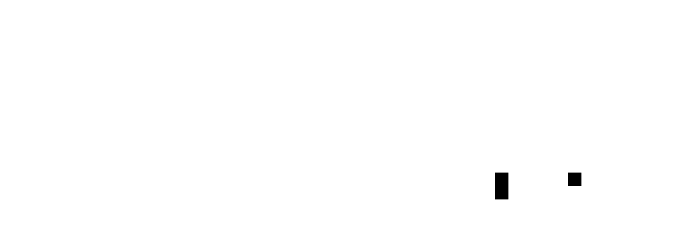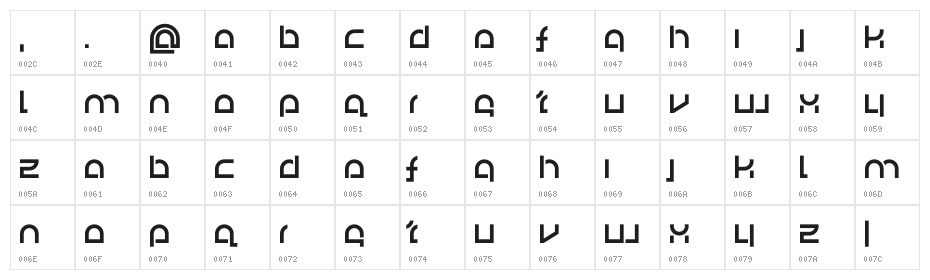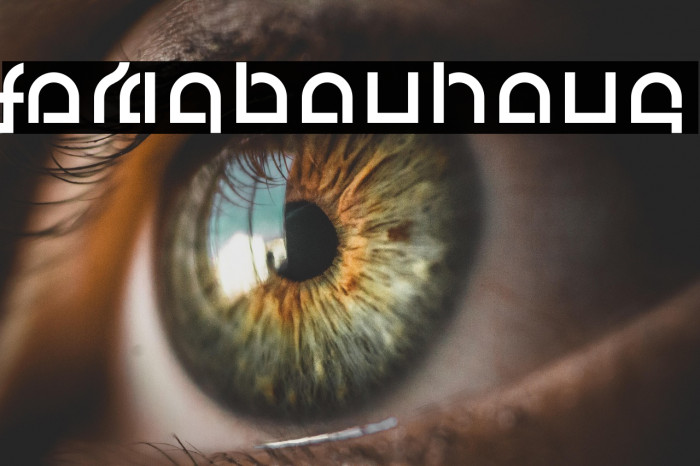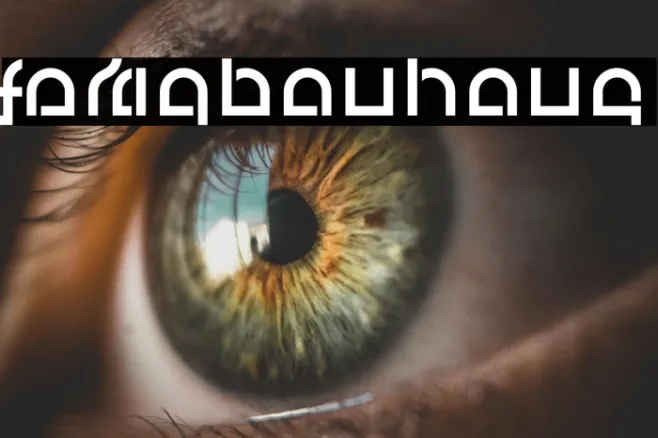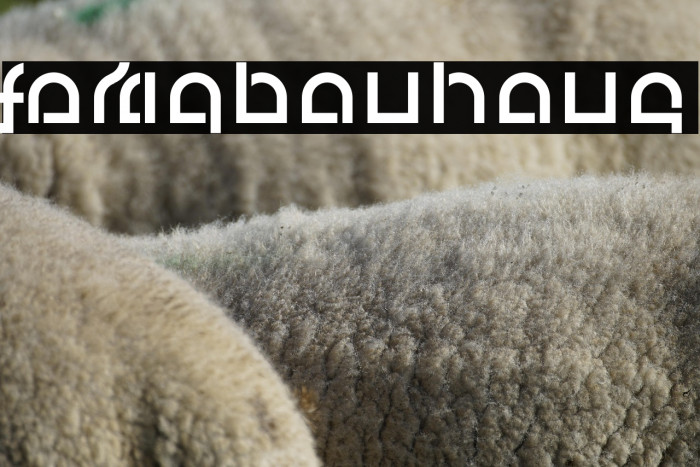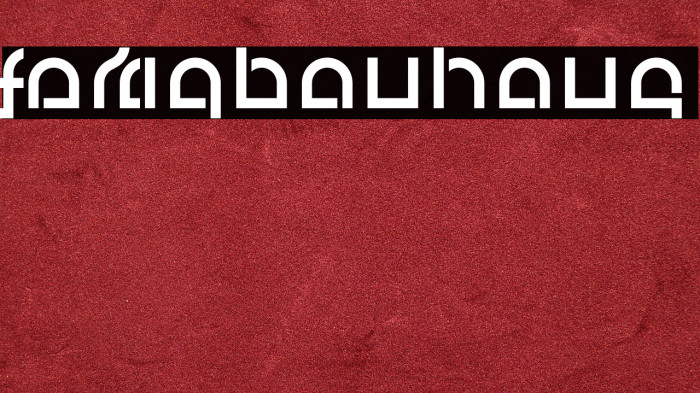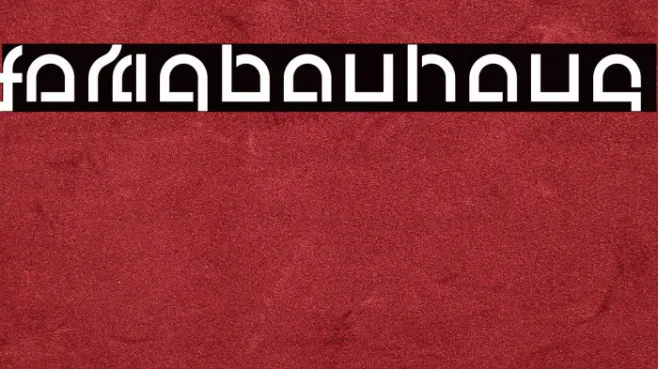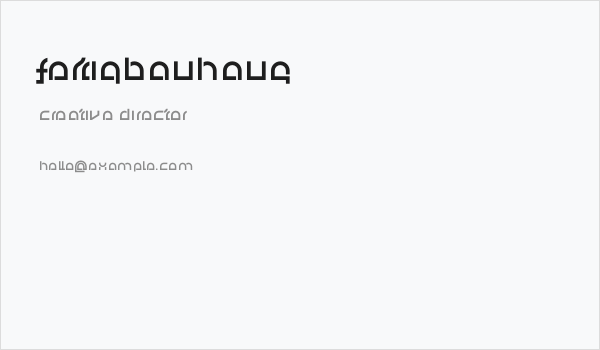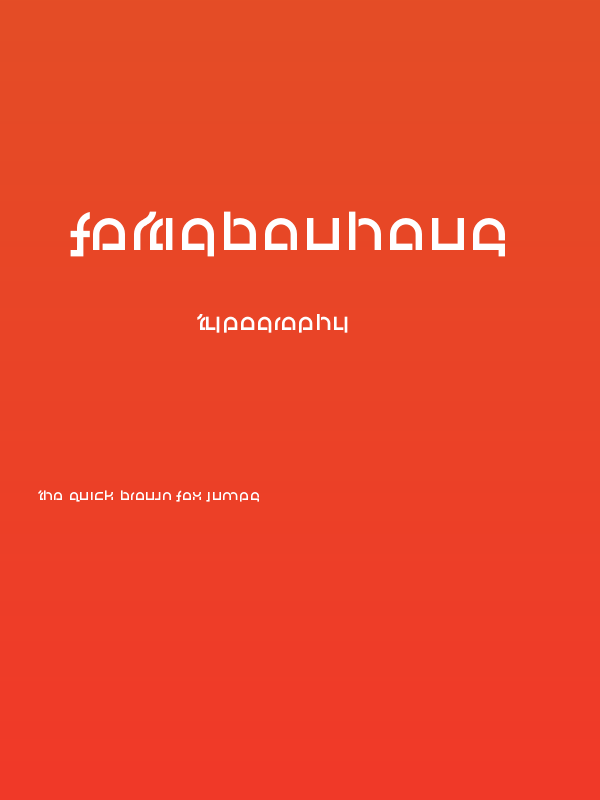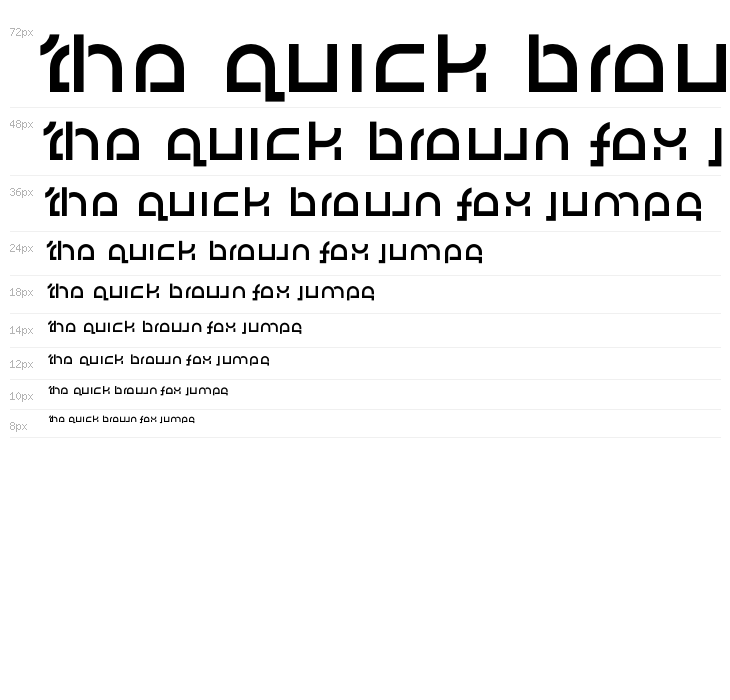
FertigBauHaus Font
FertigBauHaus Description
This font features a modern, geometric design with a futuristic appeal. Its characters are constructed with a combination of straight lines and curves, creating a unique and eye-catching appearance. The uppercase and lowercase letters maintain a consistent style, with a focus on symmetry and balance. The numerals and special characters are designed to complement the overall aesthetic, ensuring a cohesive look across all text elements. This font's bold and structured form makes it ideal for projects that require a strong visual impact.